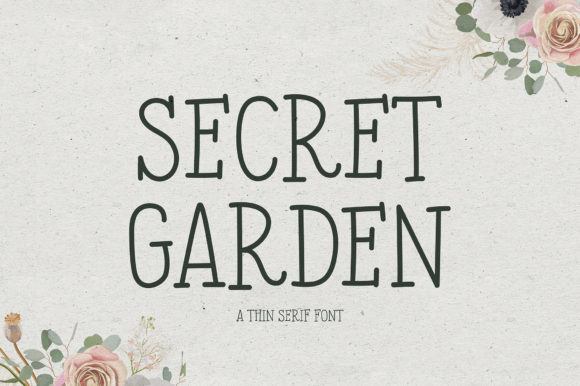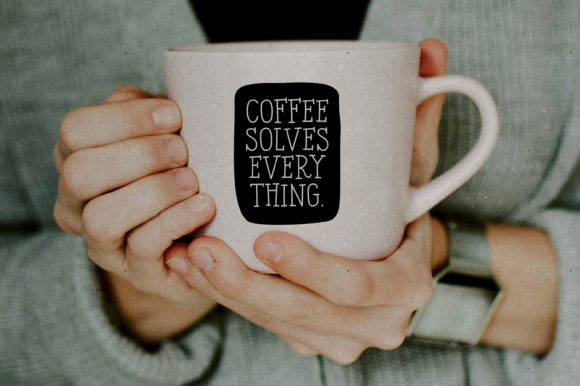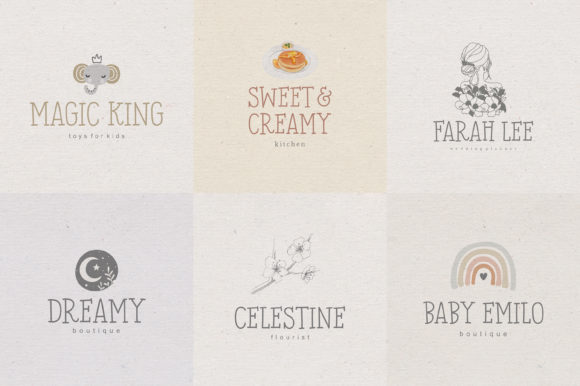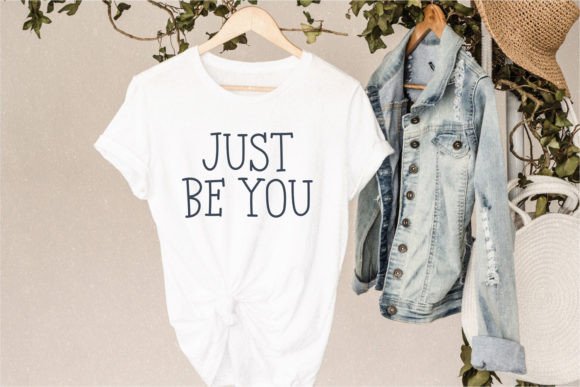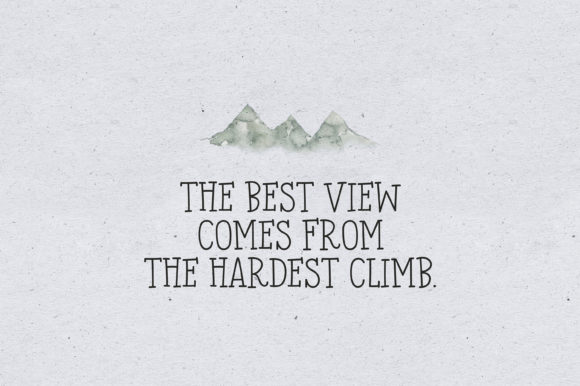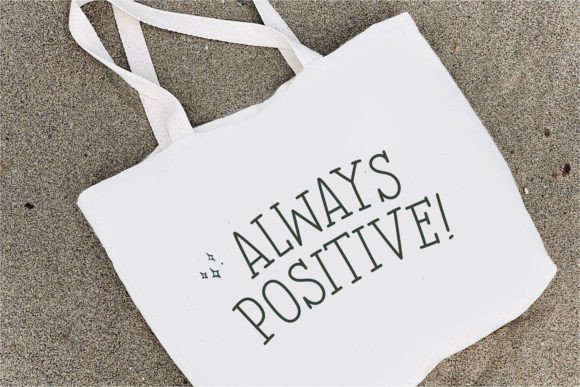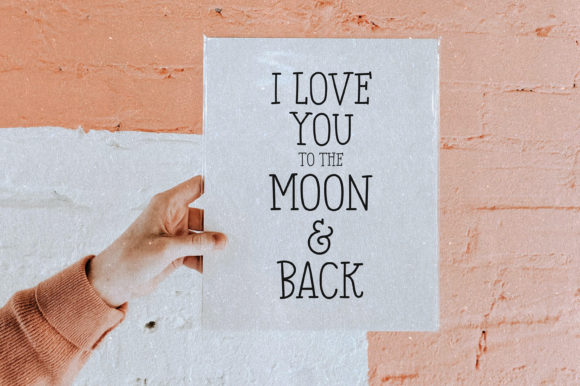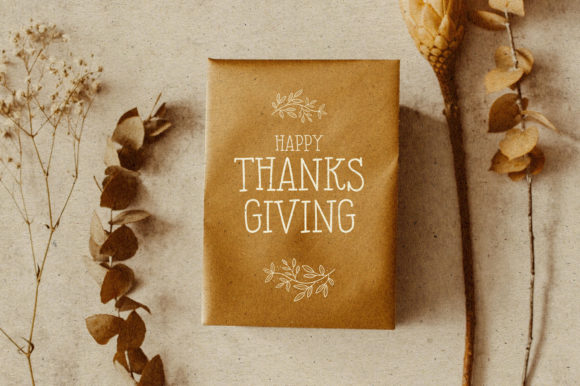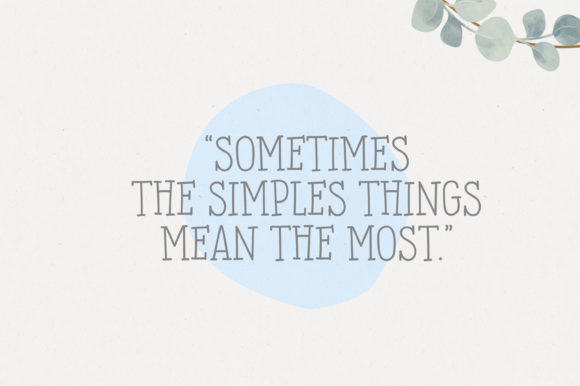
Secret Garden Font
Secret Garden is a sweet and delicate serif font. Add this romantic looking font to each of your love letters, wedding invitations or favorite design ideas, and you will be astounded by the outcome.